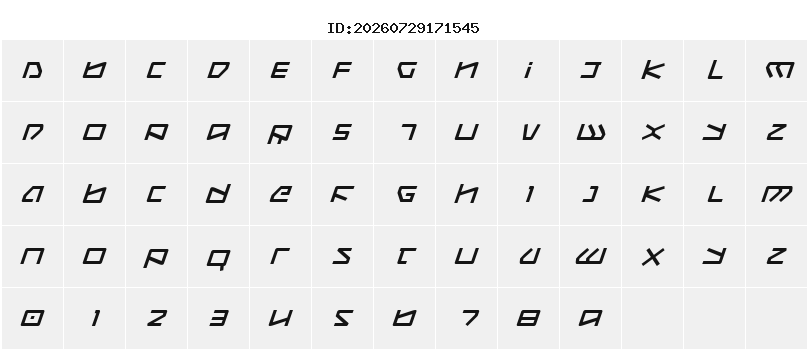
Kobold Italic Preview
• Font Name: Kobold Italic
• Full Font Name: Kobold Italic
About Kobold Italic.ttf
Kobold Italic.ttf is a modern, elegant sans-serif font designed for ultimate readability and visual harmony. Perfect for branding, headlines, web design, and print materials.